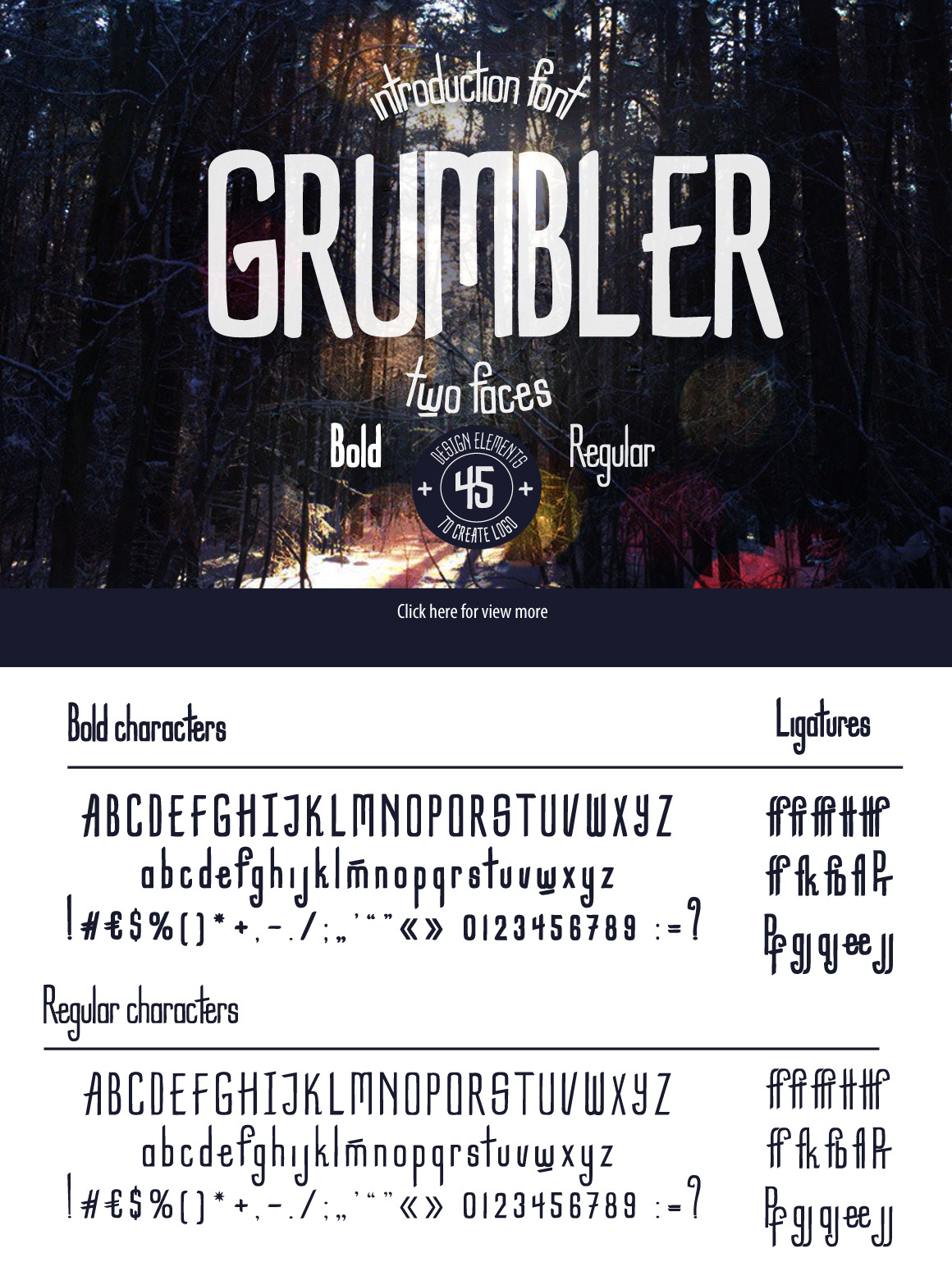
Grumbler font + logo elements set
Pleased to present the new authentic font Grumbler. The font is made in two styles regular and bold. It is perfect for creating your own unique logo. In addition to the font, the set includes 30 of the design elements, 15 frames for your logo and 9 ready-made logos.